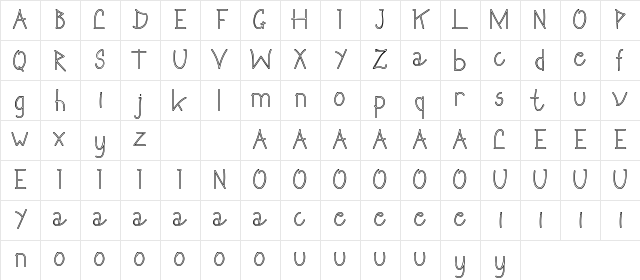
Eberta Light Demo Outline Regular
Foundry: Edric Studio
Designer: Yasri Ainun
Design Context for Eberta Light Demo Outline
Eberta Light Demo Outline is built around its visual character rather than neutral utility - its distinctive forms are designed to make an impression at display sizes. Its slender proportions lend an understated elegance to any composition.
Font Pairing: Pair with a clean neutral sans-serif for body copy to let Eberta Light Demo Outline's character lead without overwhelming the composition.
Pro Tip: Use Eberta Light Demo Outline exclusively at display sizes - it was designed to be seen, not read at length. Let a neutral companion handle body copy.